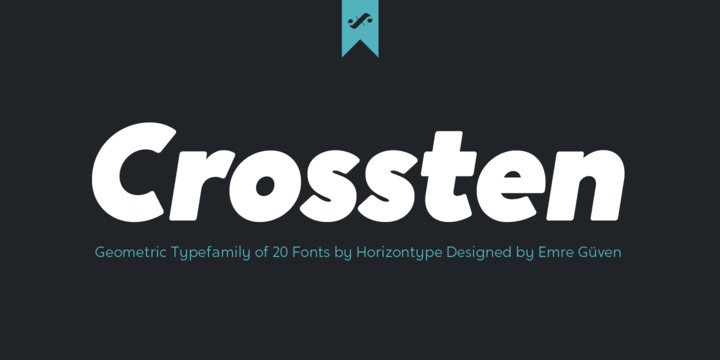
Crossten Font
Crossten Font is perfect for modern logo design, corporate branding projects, tech startup communications, professional web interfaces, contemporary signage systems, business presentations, digital marketing materials, and sleek product packaging.
Crossten Font is exciting because it delivers exceptional geometric precision with contemporary edge styling that creates powerful visual impact while maintaining outstanding readability. Its modern architectural character projects innovation and reliability, making it ideal for brands seeking to establish cutting-edge market presence and professional credibility.
Crossten Font family includes regular weight with stylistic alternates and contemporary variations, providing designers with comprehensive options for creating modern typography solutions that project technical sophistication and forward-thinking design sensibility.
Crossten Font Free Download provides access to premium contemporary typography that embodies modern design excellence and professional innovation. This expertly crafted typeface demonstrates exceptional balance between geometric precision and human accessibility, creating genuine contemporary appeal without sacrificing functionality. The font's technical character makes it particularly suitable for technology companies, engineering firms, architectural studios, and professional services seeking to establish modern visual identity that resonates with progressive audiences and tech-savvy consumers.
Design professionals consistently select Crossten Font for projects requiring technical precision and contemporary authenticity. Its modern character works magnificently in tech environments, corporate headquarters, professional conferences, and innovation-focused ventures where cutting-edge aesthetics and technical competence drive audience confidence. The font's sophisticated nature creates memorable brand experiences that communicate expertise and technological leadership.
The Crossten Font download package includes stylistic alternates, technical variations, and professional elements that enhance its modern appeal and design flexibility. This comprehensive collection ensures professional results in contemporary design projects requiring innovative typography character. The font performs exceptionally across both digital and print applications where its technical details and modern proportions create significant visual impact and professional distinction.
Creative teams appreciate Crossten Font's ability to communicate technical innovation and contemporary sophistication in competitive professional markets. Its modern styling transcends traditional typography approaches while maintaining the precision required for technical positioning, making it an essential tool for organizations seeking to establish cutting-edge brand presence through superior contemporary typography and exceptional professional communication.